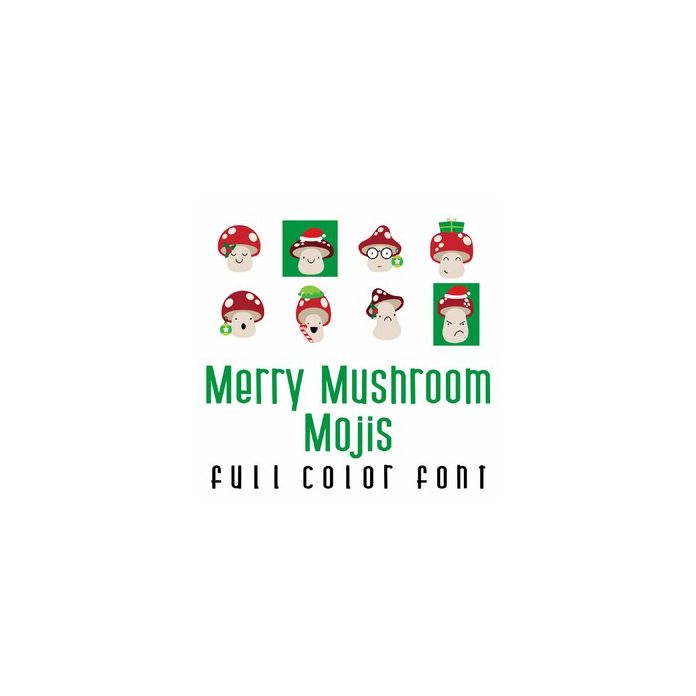
This adorable full color doodlebat font features adorable Christmas mushroom emojis. Perfect for cards, crafts, gifts, decor, scrap book pages, planner stickers and more!